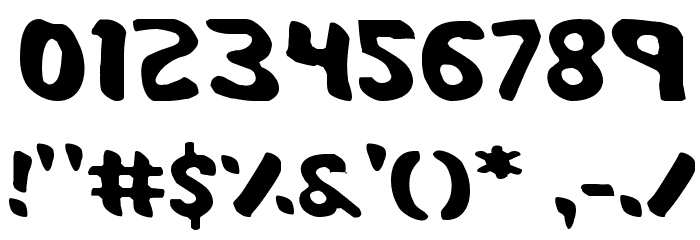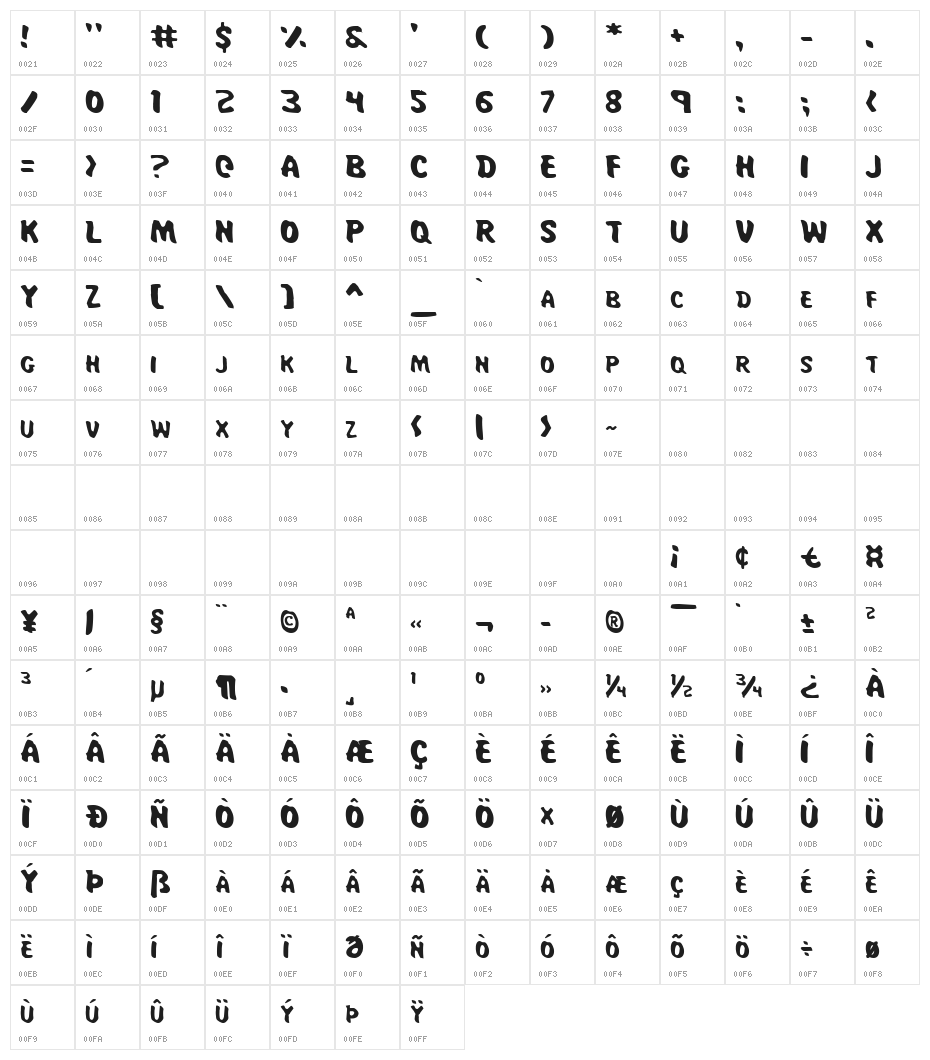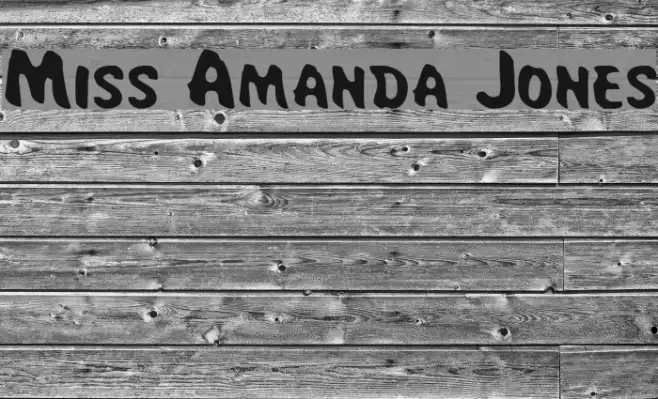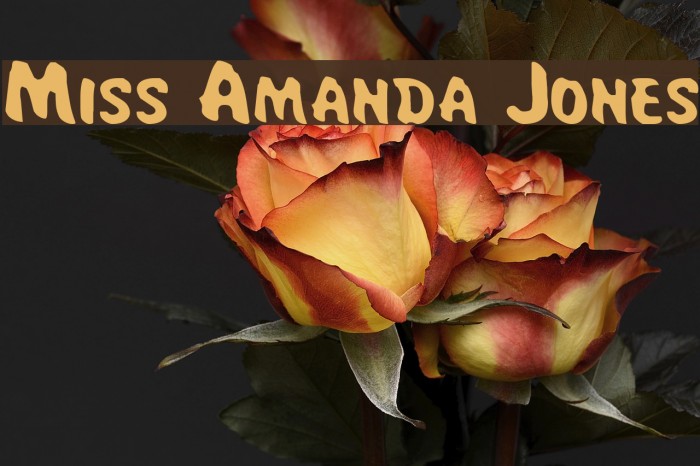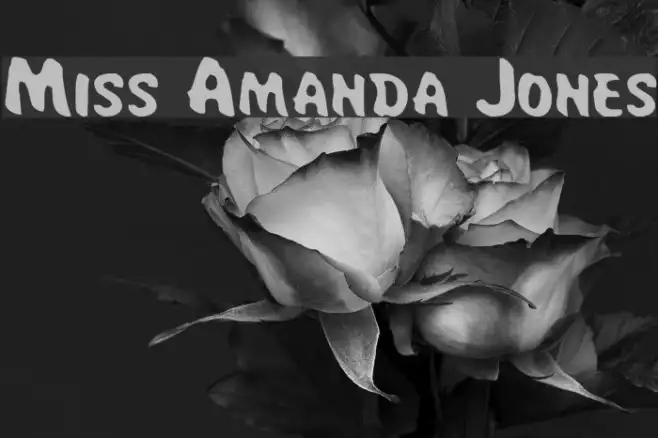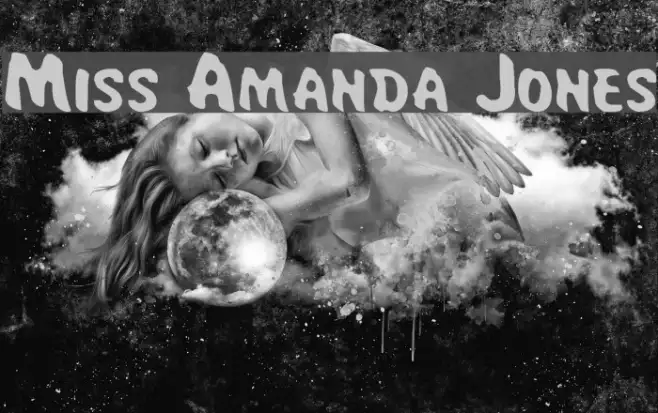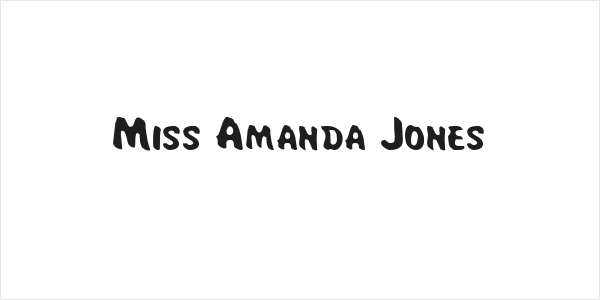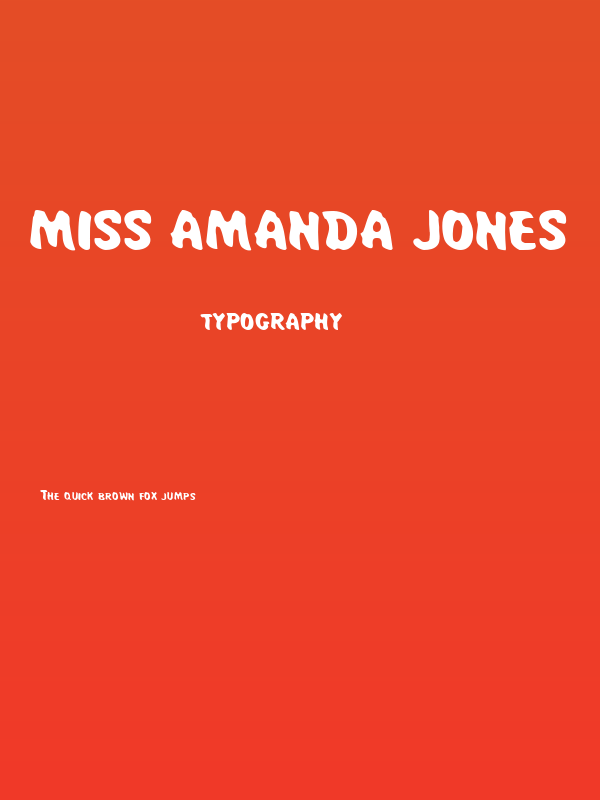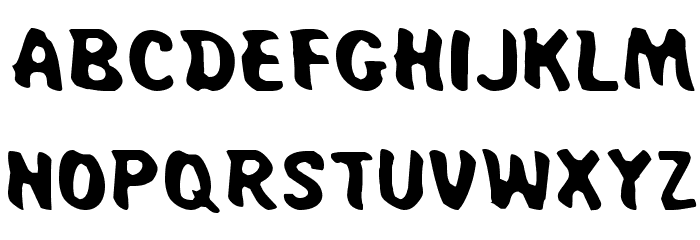
Miss Amanda Jones Font
Miss Amanda Jones Description
This font features a bold and playful design, characterized by its thick, rounded strokes and slightly irregular shapes. The letters have a hand-drawn appearance, giving them a whimsical and friendly vibe. The uppercase and lowercase characters maintain a consistent style, with a noticeable weight that makes them stand out. The numbers and special characters follow the same design principles, ensuring uniformity across the font. Its unique style is suitable for creative and informal projects, adding a touch of personality and charm.